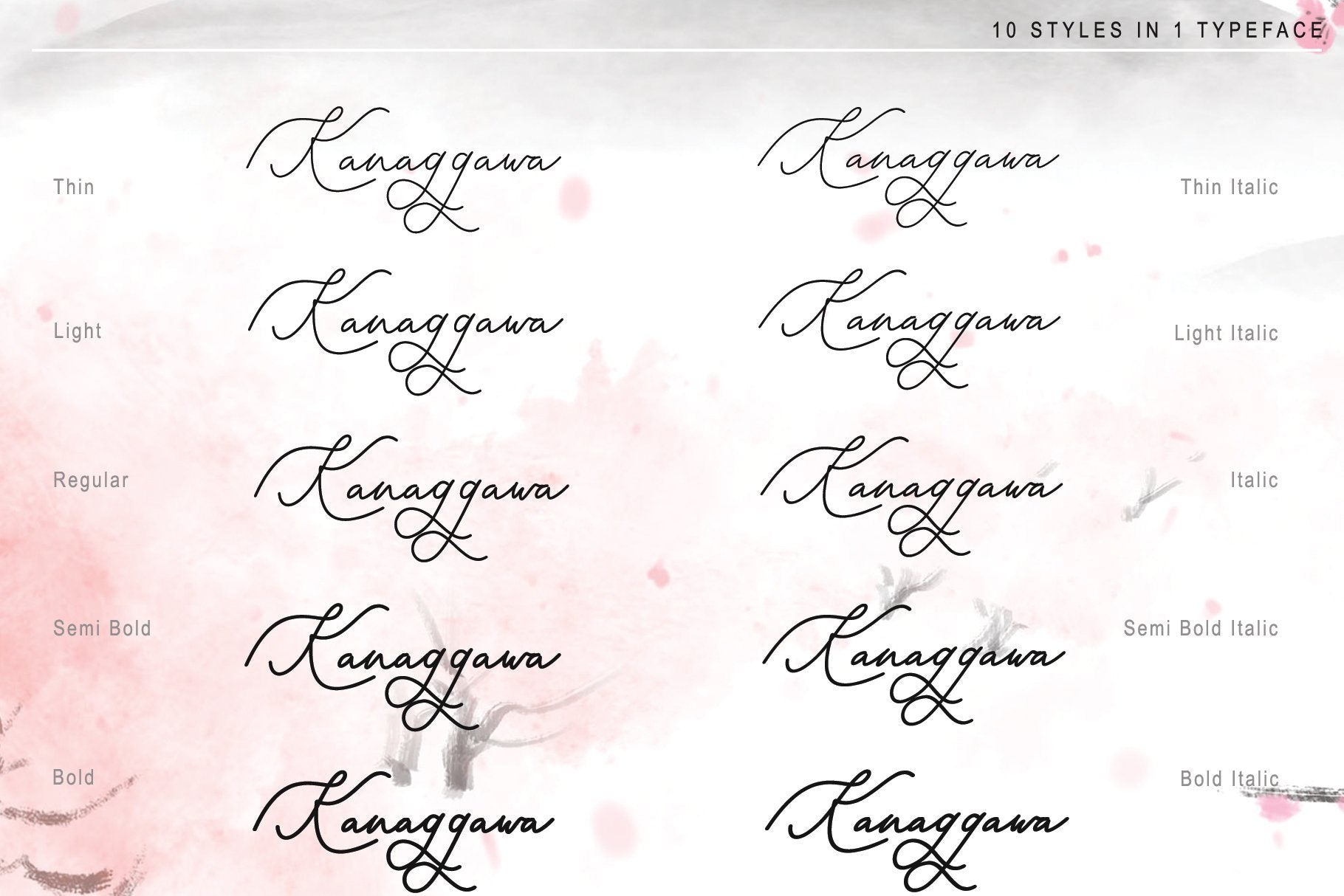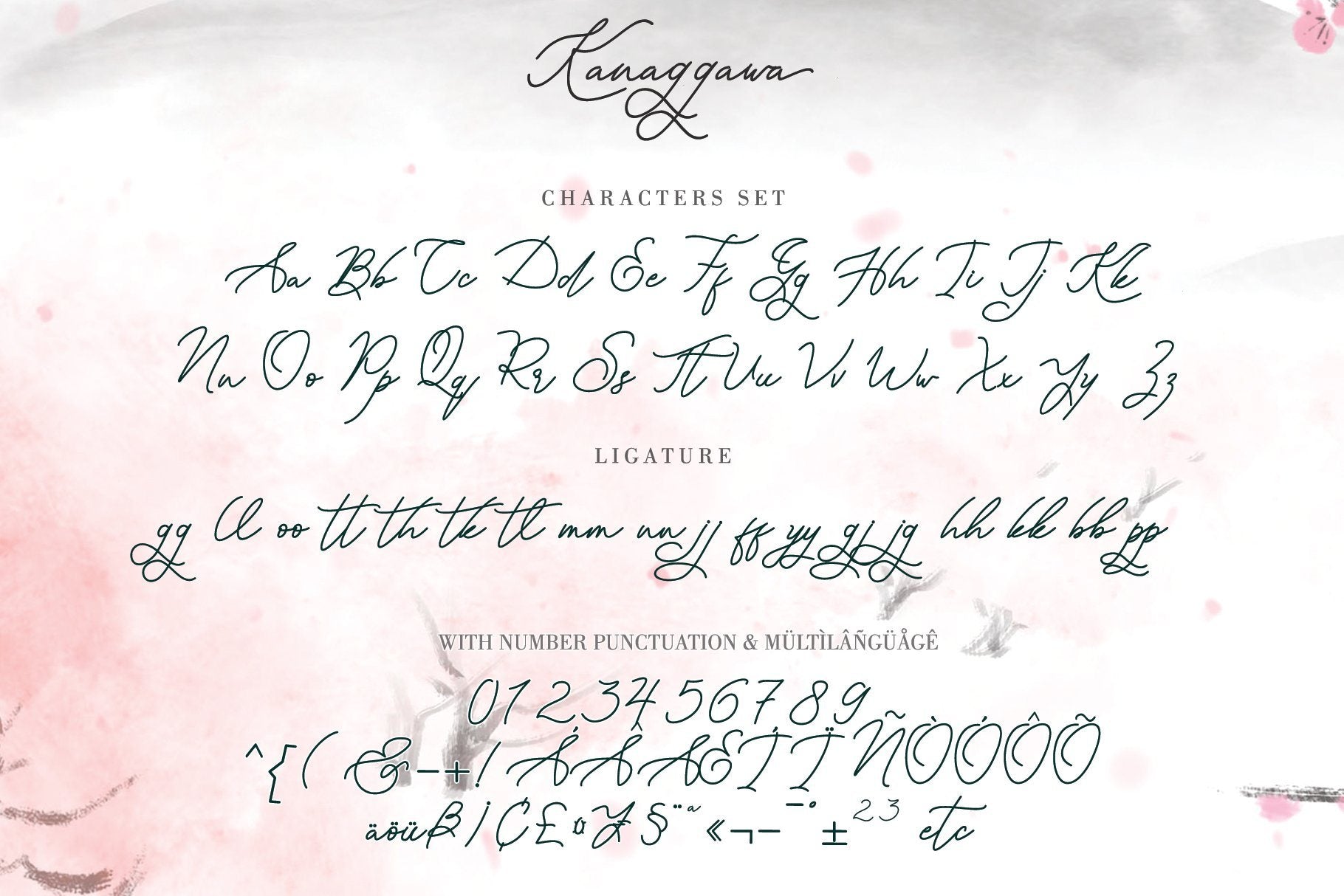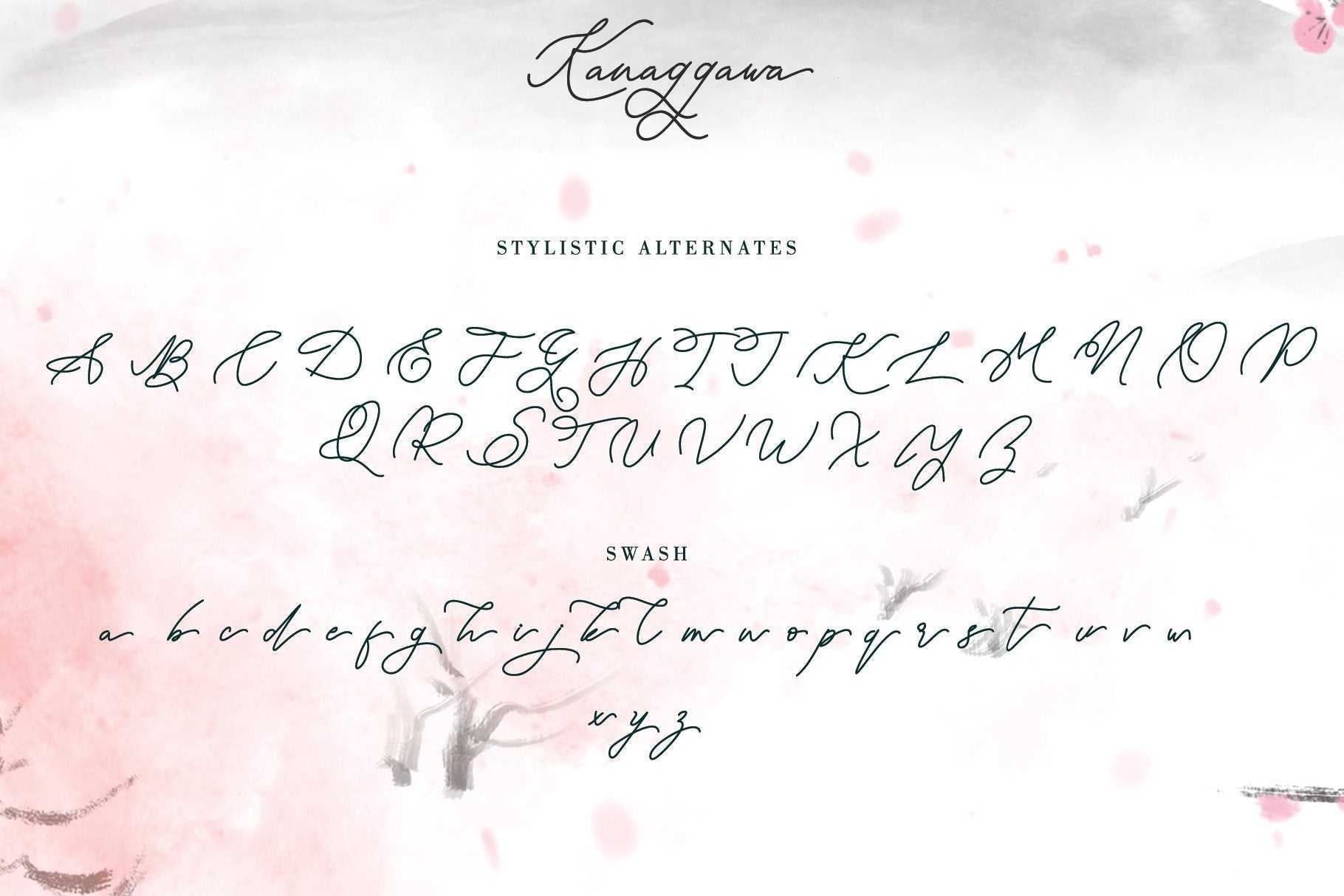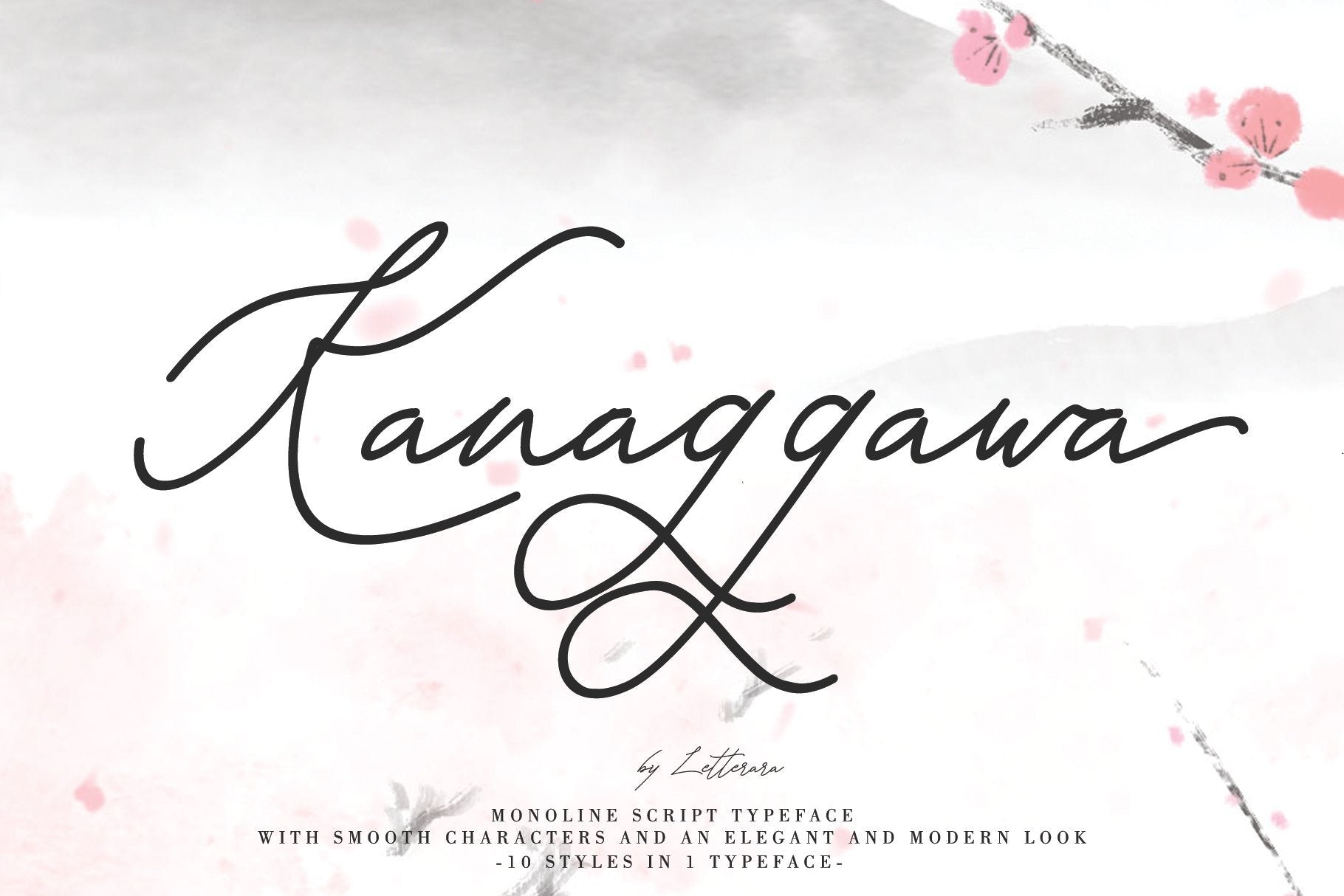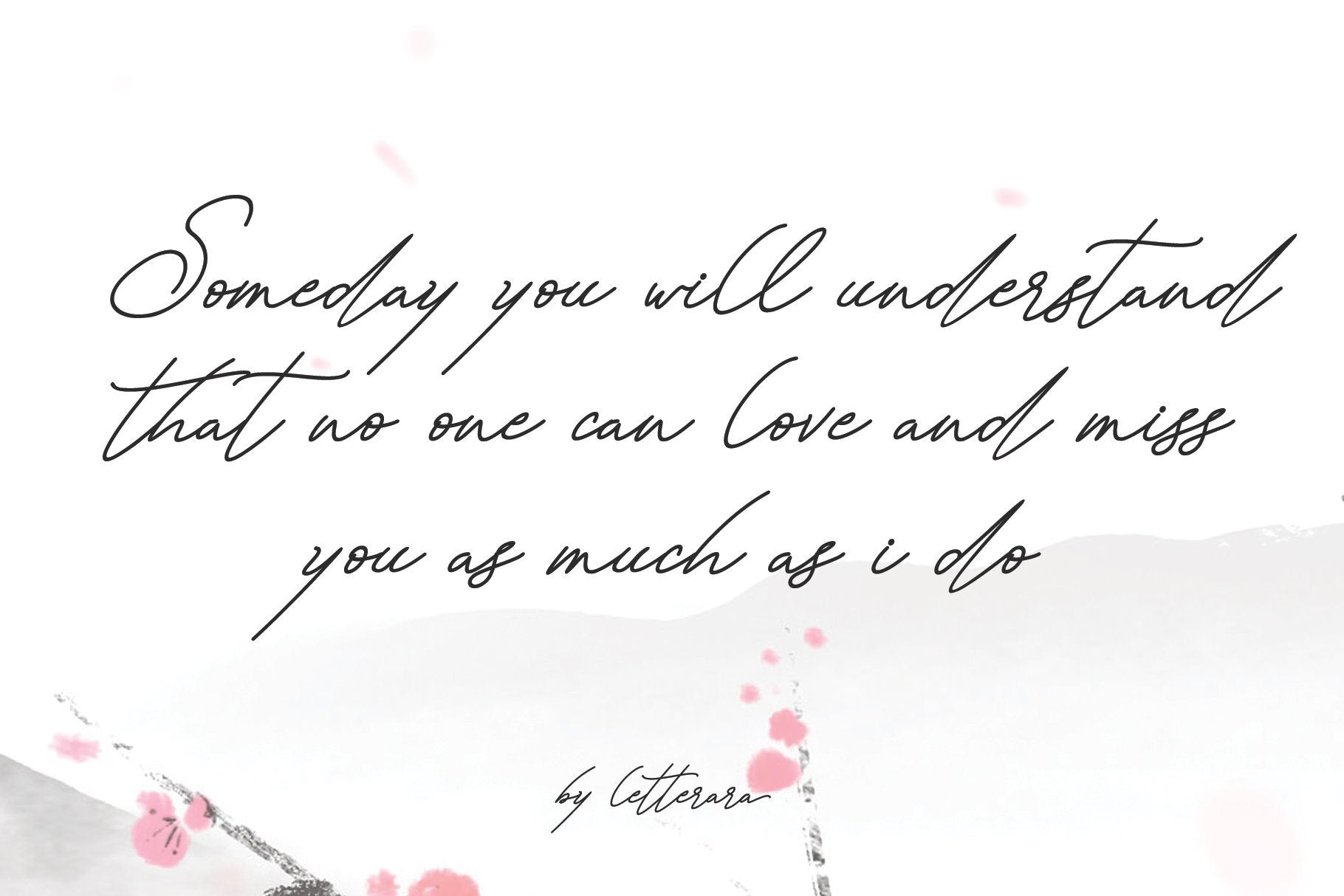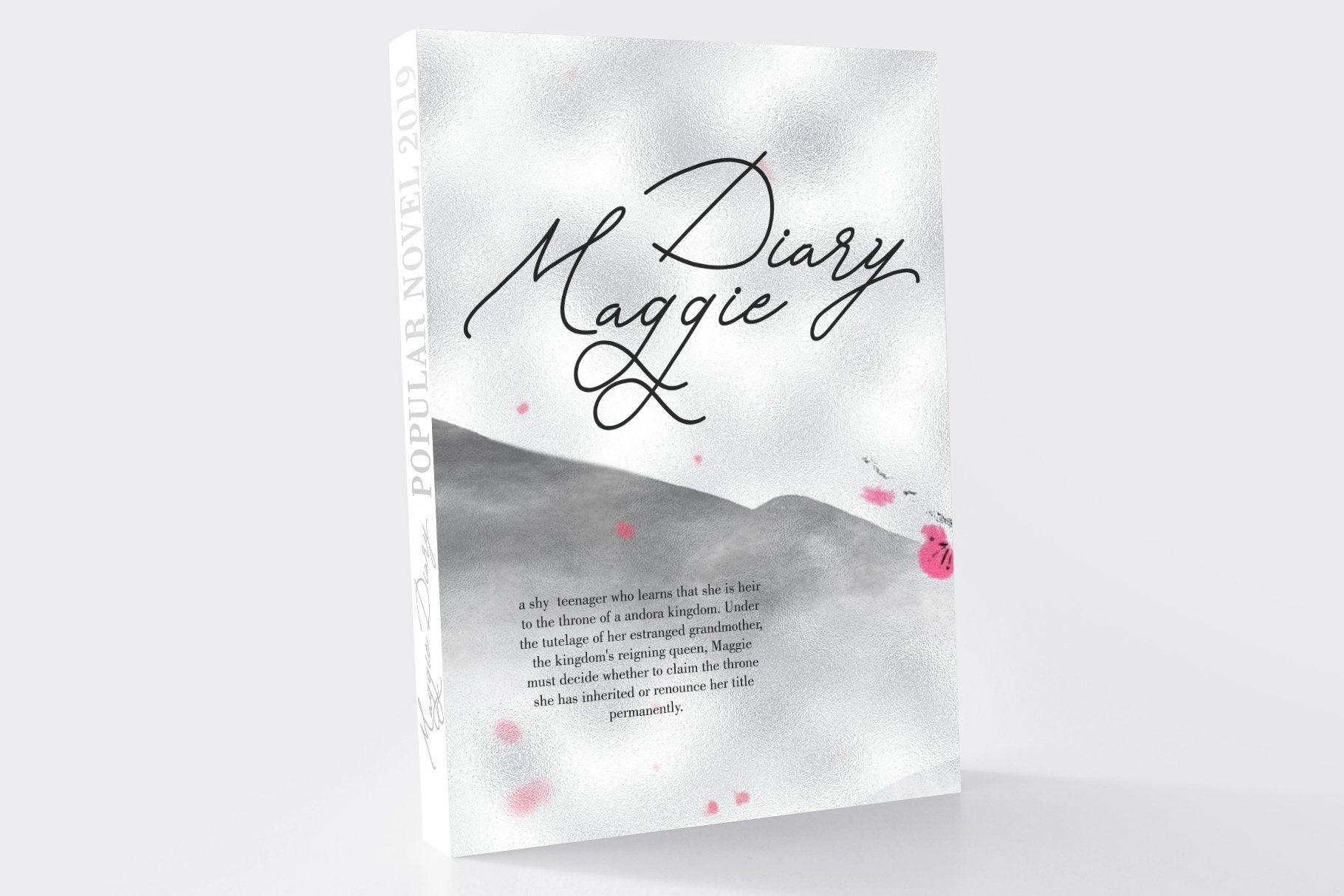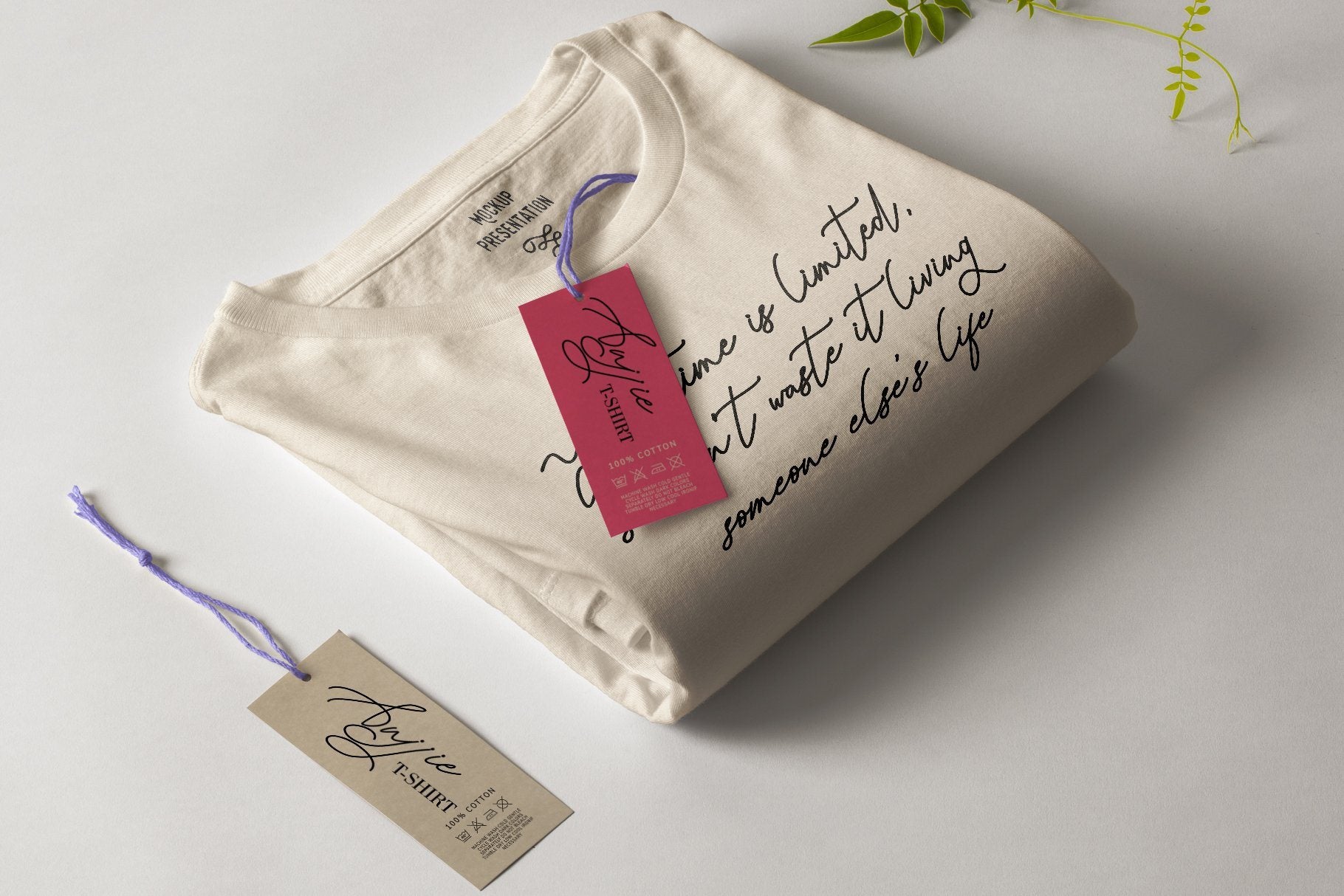
KANAGGAWA
About KANAGGAWA
Kanaggawa font is Monoline script typeface with smooth characters and an elegant and modern look. Kanaggawa is suitable for logos, signatures, taglines, T-shirts, handwritten quotes, product packaging, posters, and much more! Add Kanaggawa, a beautiful script font, to your collection today. Features : – 10 Styles in 1 typeface – Upper Case & Lowercase – Numerals – Punctuations (OpenType Standard) – Accents (Multilingual characters) – Ligatures and Alternative Style Stylistic Set – Works on PC & Mac – Simple installations – Accessible in the Adobe Illustrator, Adobe Photoshop, Adobe InDesign, even works on Microsoft Word. don’t wait anymore, put it in your shopping basket 🙂 and follow me, because there will be many promos! Our other products : BEST SELLER BLACK PINK SIGNATURE ANDORA BRIGITTA HEANFFE EIFFEL IN LOVE ( FONT TRIO) BLACK PINK SUMMER HONG KONG ANGEL MALEFICENT California Street BESTOWENS FAMILY